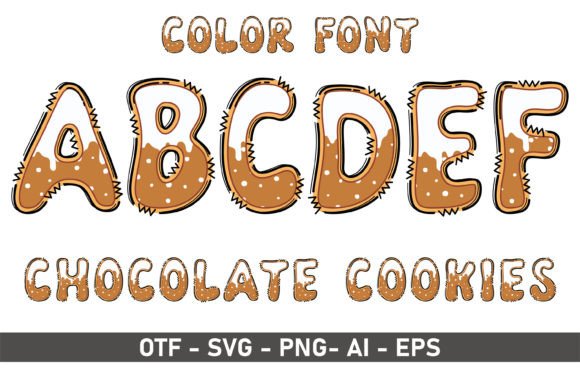
Unlock the Magic of Whimsy with Chocolate Cookies Font, the Ultimate Creative Ally for Your Designs!
Embark on a playful adventure with Chocolate Cookies Font, a delightful treat for your creative journey. With its vibrant colors and charming contours, this font family is a true game-changer, transforming your designs into eye-catching wonders. Step into a world of endless possibilities, where creativity knows no bounds.
Explore a delectable range of 10 unique fonts, each bursting with personality and charm. Let your imagination soar as you craft enchanting greeting cards, invitations that sparkle, and posters that ignite the spirit. Dive into the world of children's books, where Chocolate Cookies Font takes center stage, guiding young readers through fantastical realms with its easy-to-read, enchanting charm.
Chocolate Cookies Font is not just a font; it's a gateway to a world of artistic expression. Its playful nature lends itself seamlessly to designs that spark joy and captivate hearts. Picture adorable baby logos adorned with playful characters and vibrant hues, each stroke of the font adding a touch of enchantment. Unleash your creativity and bring your visions to life, whether it's a charming poster for a local theater production or an unforgettable invitation to a birthday extravaganza.
We've meticulously crafted Chocolate Cookies Font with both black and color versions, ensuring compatibility with a variety of design software. While the black version harmonizes perfectly with cutting machines like Design Space, the color version seamlessly integrates with design powerhouses like Photoshop, Illustrator, Silhouette, and Inkscape.